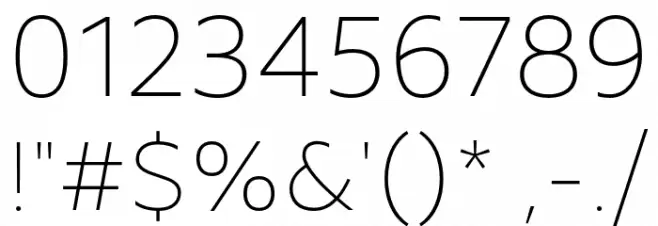
MADEFutureX-Thin Font
MADEFutureX-Thin Description
This font features a clean and modern sans-serif design with a thin weight, emphasizing simplicity and elegance. The characters are uniformly constructed with a consistent stroke width, giving it a sleek and contemporary appearance. The uppercase and lowercase letters are well-proportioned, maintaining a harmonious balance throughout. The numerals are clear and legible, making them suitable for various applications. Special characters are included, enhancing its versatility. Overall, the font exudes a minimalist aesthetic, ideal for projects that require a refined and understated look.
A modern, thin sans-serif font with a clean and minimalist design from Uncategorized fonts.